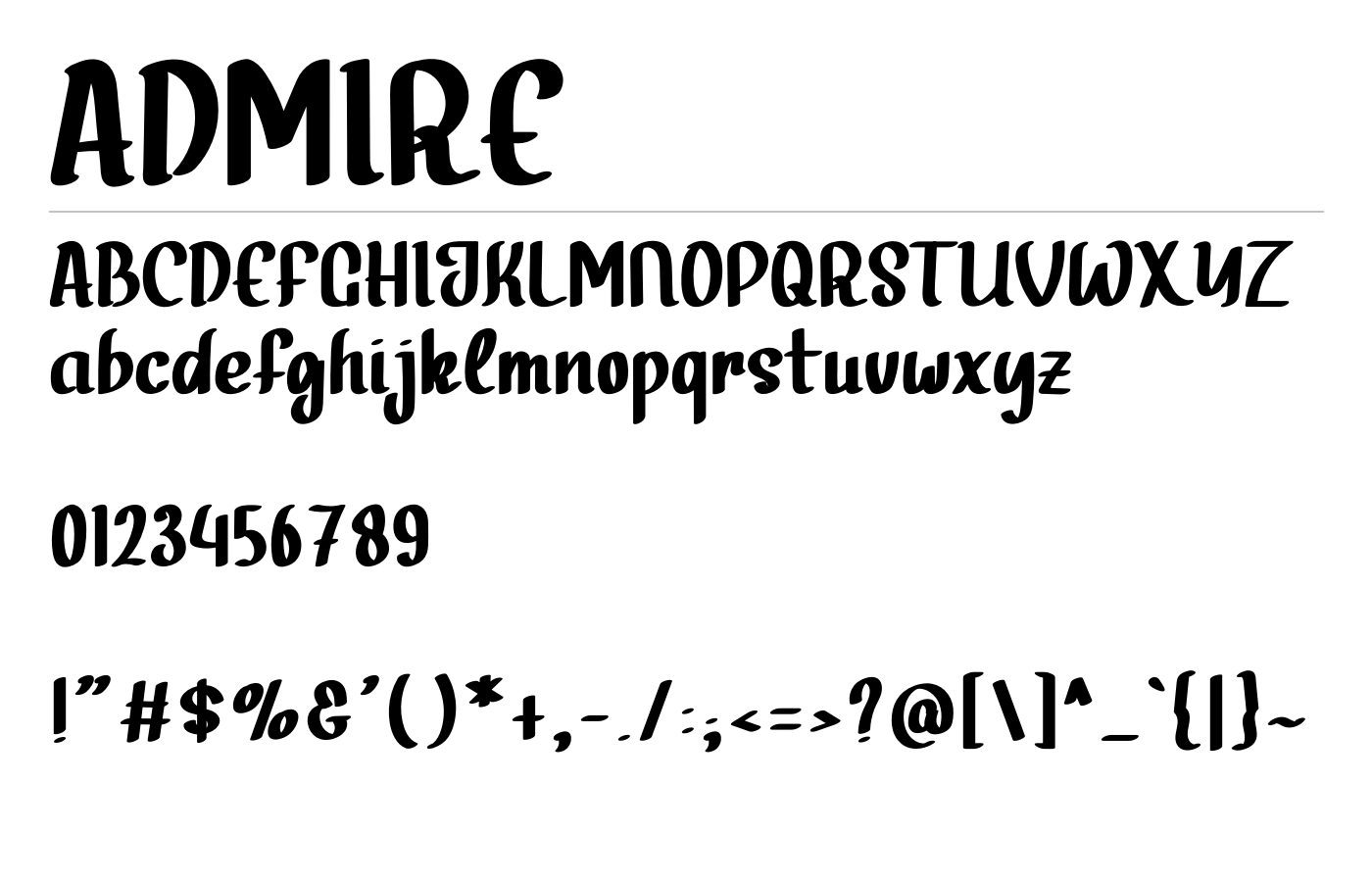
ADMIRE is a bold, playful serif font with a hand-crafted, slightly whimsical feel. Its rounded yet strong letterforms, moderate contrast, and unique shapes give it a friendly, approachable personality that works well for creative branding, headlines, and informal editorial projects seeking warmth and character. This font stands out in designs that want to balance charm and readability with a touch of vintage flair.
ADMIRE Font
About ADMIRE Font